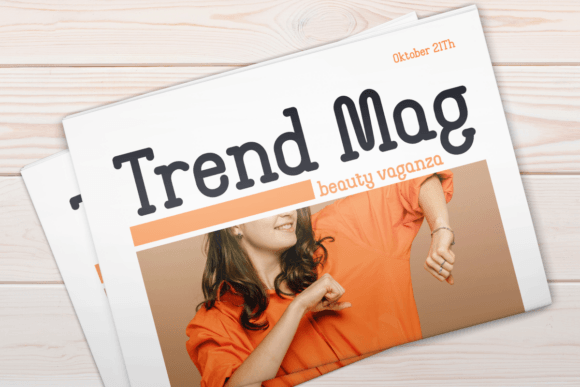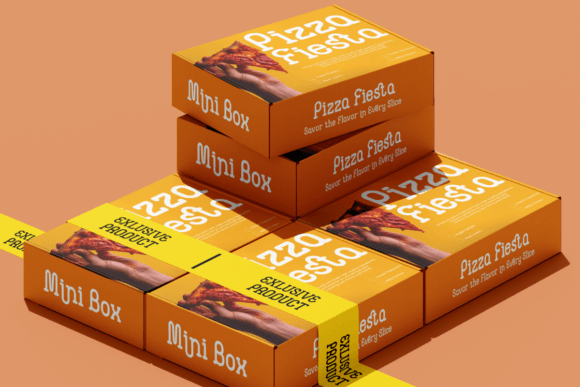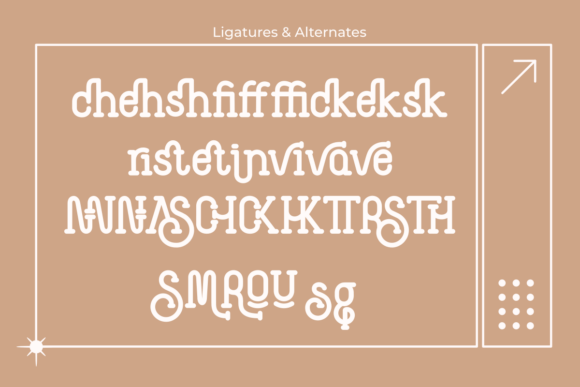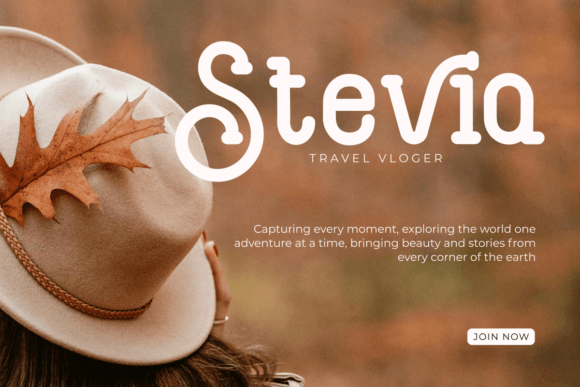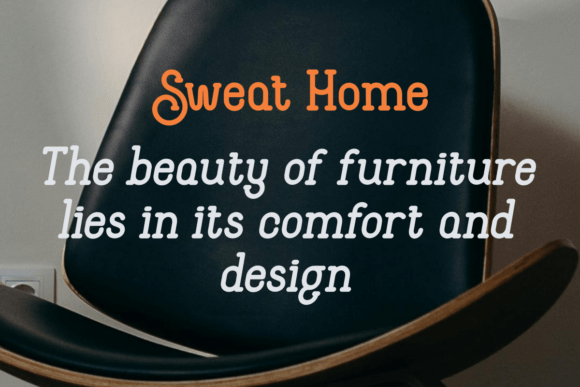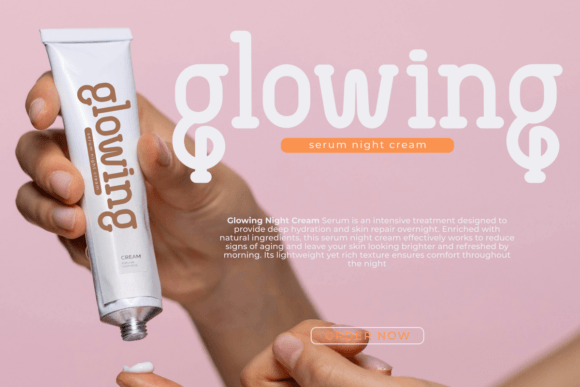
Introduction to Sincky Font
Sincky is a monoline serif display font designed with precision and elegance, ideal for creating standout typography in bold, impactful designs.
Its clean and minimalist monoline structure gives it a modern yet timeless feel The font is equipped with a wide range of ligatures, offering versatility and creativity, ensuring your designs maintain a unique and polished look.